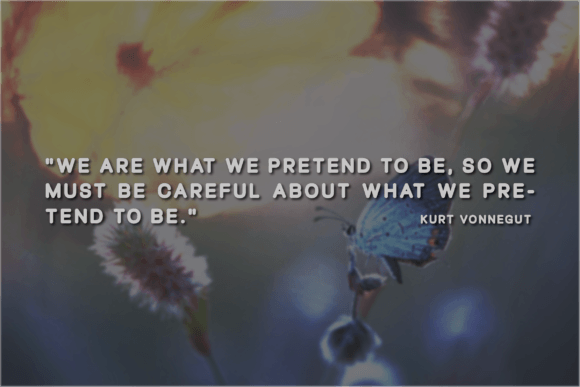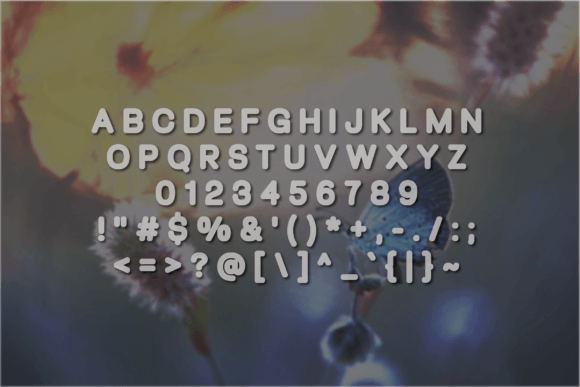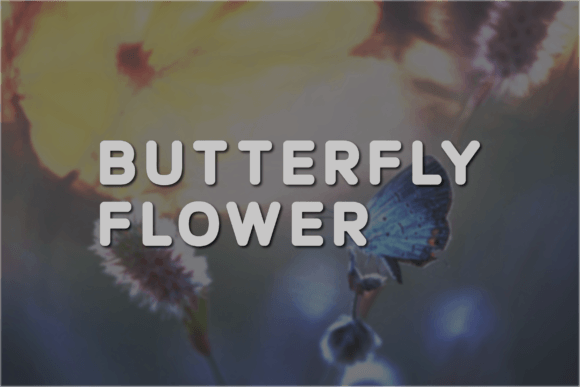
The Magic of Butterfly Flower Font: Elevate Your Designs with Elegance
I’ll never forget the time I was working on a wedding invitation project, and my client asked for a font that was both modern and classy. I scoured the internet, tried out countless fonts, but nothing seemed quite right. That was until I stumbled upon the Butterfly Flower font. It was like a breath of fresh air – elegant, versatile, and perfect for the job. In this article, I’ll share my experience with this amazing font, and show you how to make the most of its features.
- ✅ Versatility: Butterfly Flower is a sans serif font that works beautifully for logos, weddings, invitations, quotes, advertisements, print, magazines, and more.
- ✅ Modern and Classy: This font has a sleek, contemporary feel that’s perfect for designs that need a touch of sophistication.
- ✅ Easy to Read: The clean lines and simple shapes make it easy to read, even at small sizes.
A Few Quirks to Keep in Mind 🤔
- ⚠️ Limited Extras: While the font itself is amazing, it doesn’t come with a ton of extra features or variations.
- ⚠️ May Not Be Suitable for Body Text: While it’s easy to read, Butterfly Flower is better suited for headings and titles rather than long blocks of text.
- Experiment with OpenType features like ligatures and stylistic alternates to add some extra flair.
- Explore the glyphs panel to access special characters and alternates.
The Story Behind Butterfly Flower
Butterfly Flower was designed with the goal of creating a modern, versatile font that would be perfect for a wide range of designs. The designer wanted to create a font that was both elegant and approachable, with a clean and simple aesthetic. The result is a font that’s perfect for anyone looking to add a touch of sophistication to their designs.
Q: What type of designs is Butterfly Flower best suited for?
A: Butterfly Flower is perfect for logos, weddings, invitations, quotes, advertisements, print, magazines, and more.
Q: Is Butterfly Flower a script font?
A: No, Butterfly Flower is a sans serif font, but it has some elegant features that make it perfect for designs that need a touch of sophistication.